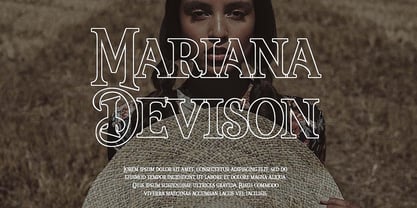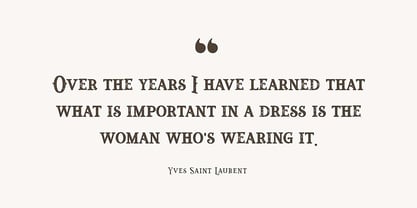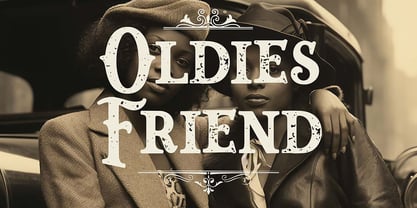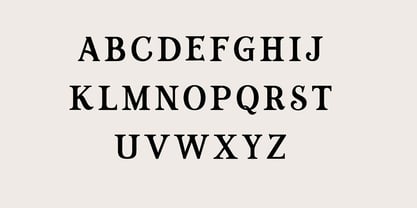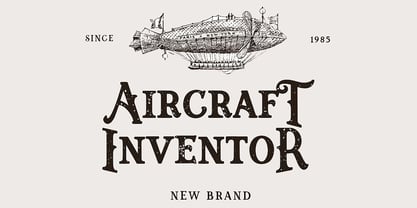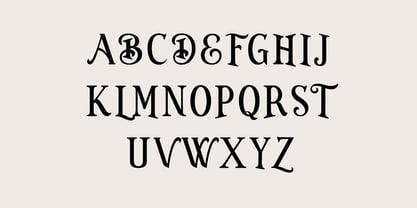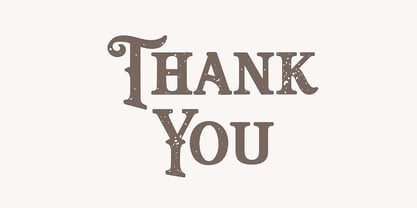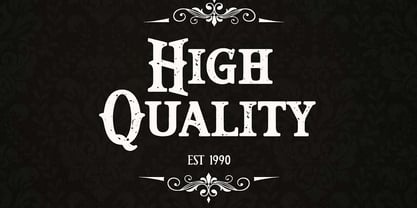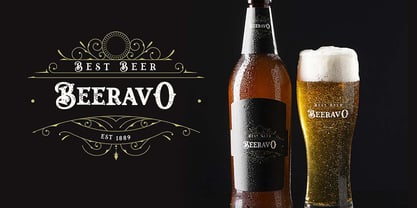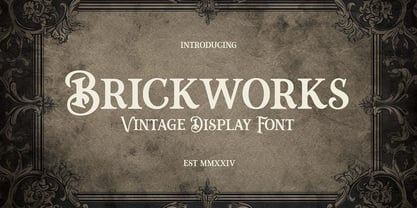
Brickworks
The Brickworks Font Family was designed by Hero and published by UICreative. Brickworks contains 5 styles and family package options.
Brickworks Vintage Display Serif Font. The modern display font feels beautiful classy, elegant, and stylish. This font is ideally suited for a wide variety of projects, such as signature, stationery, logo, wedding, typography quotes, magazine or book covers, website headers, branding, and more. Also, fashion-related branding or editorial design displays both masculine and feminine qualities.